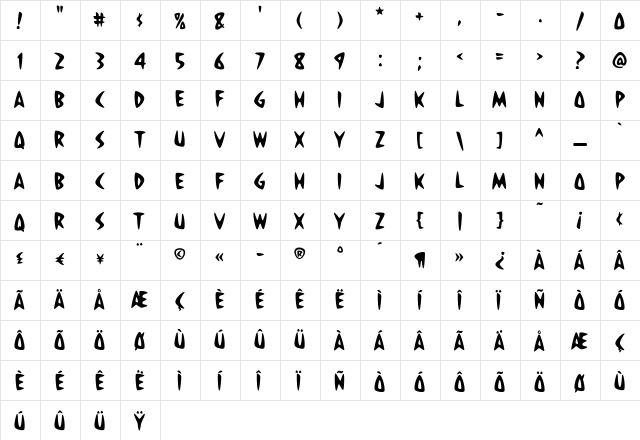
House-A-Rama Medium
Design Context for House-A-Rama Typeface
House-A-Rama is a composed and adaptable typeface that performs quietly and consistently across a wide range of design contexts.